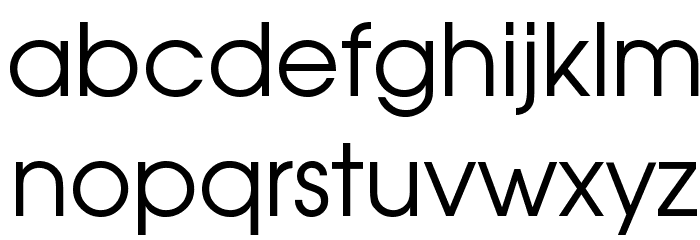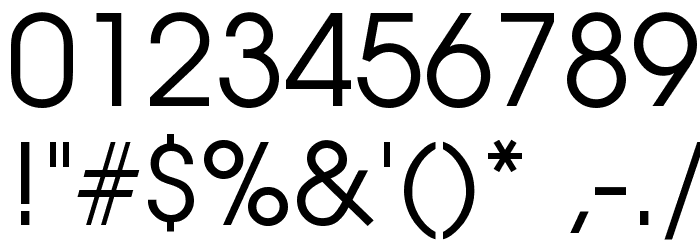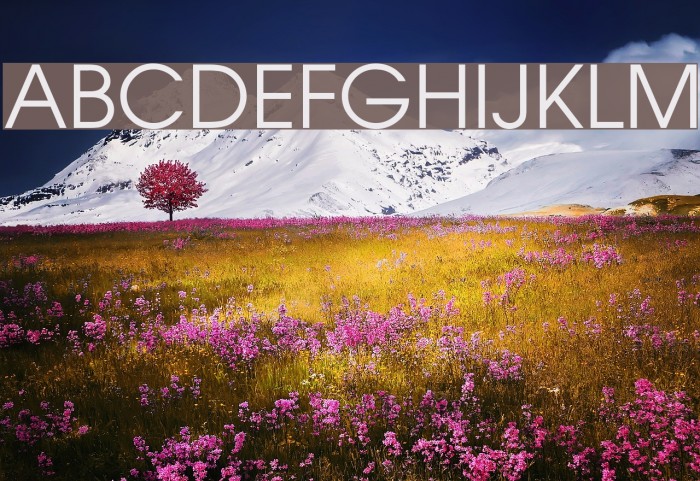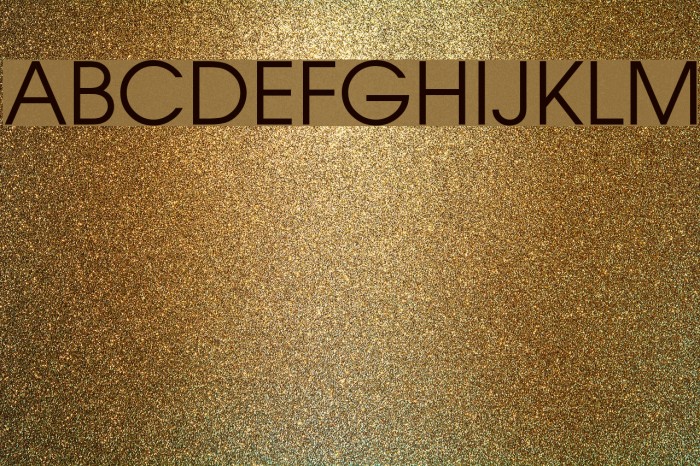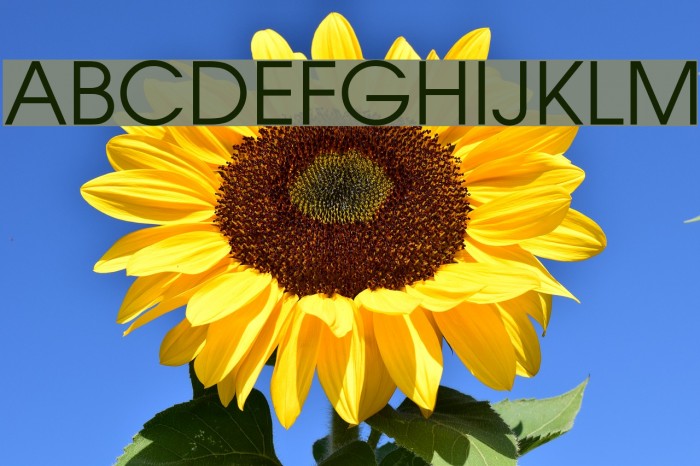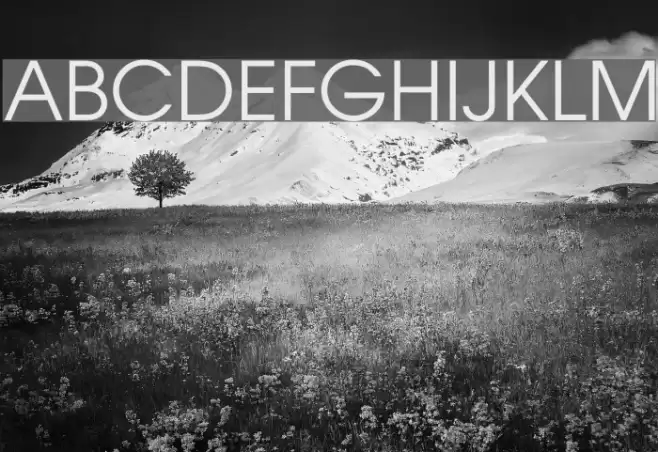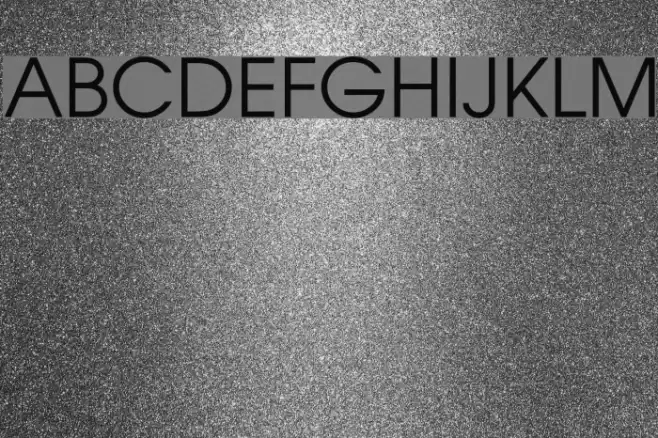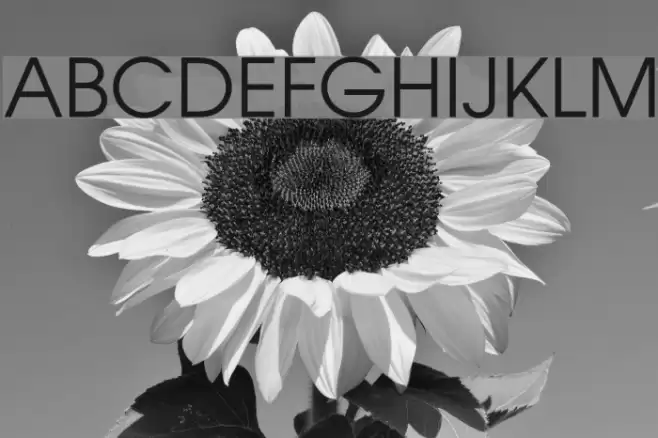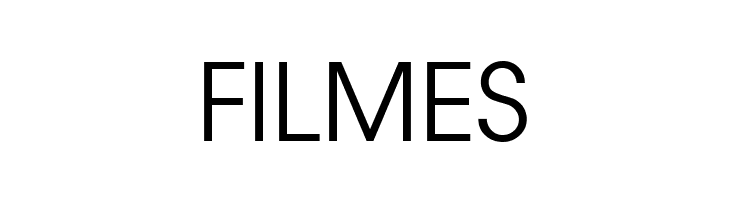
VietVu Font
This font features a clean, geometric sans-serif style with a modern aesthetic. The characters are well-balanced with consistent stroke widths, giving it a uniform appearance. The uppercase letters are bold and impactful, while the lowercase letters maintain a harmonious flow. The numerals are clear and easily distinguishable, and the special characters are designed to complement the overall style. The font's simplicity and clarity make it versatile for various design applications.
- Proposed Projects: Ideal for branding, advertising, web design, and editorial layouts due to its modern and clean appearance.